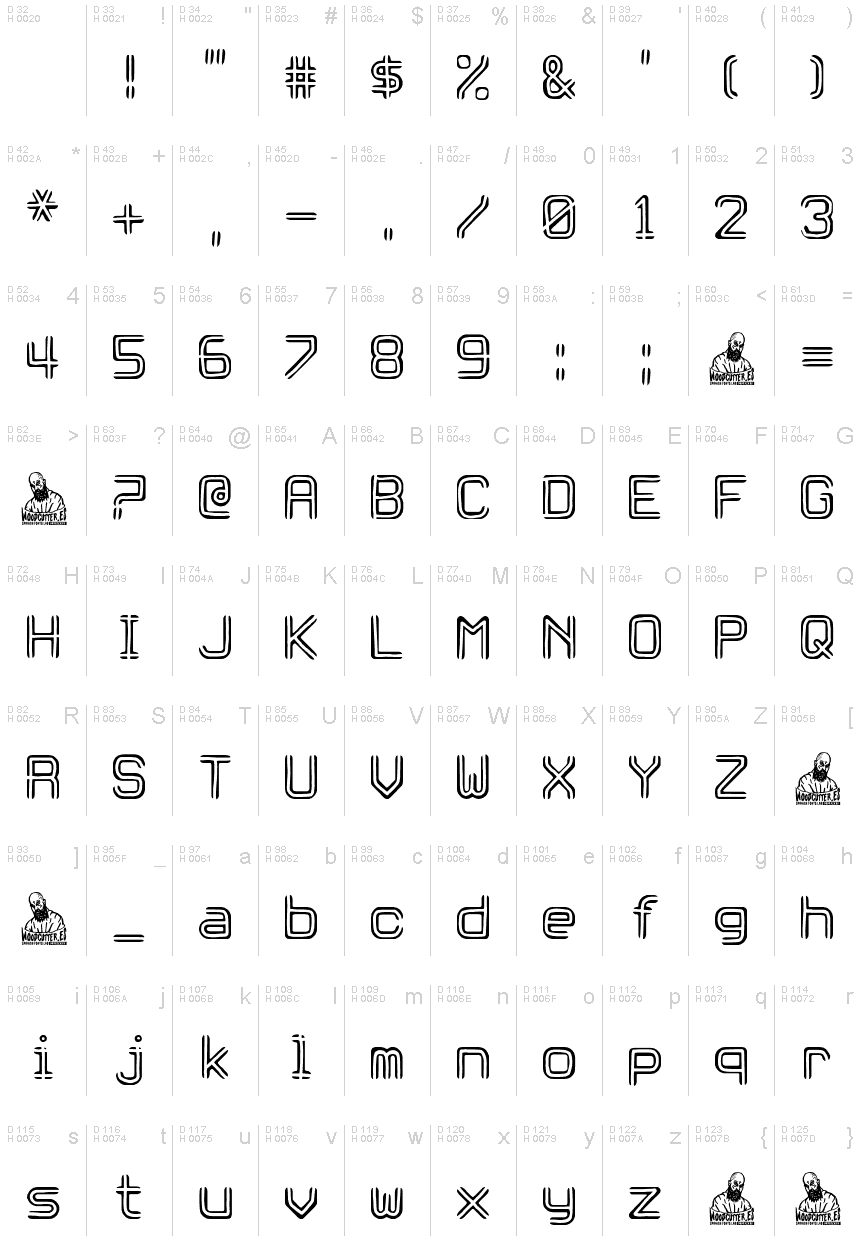
Nasty Works Company
The Nasty Works Company font, designed by Woodcutter, is a captivating display typeface with a semi-expanded width. Its bold and edgy style makes it perfect for projects that aim to stand out and make a statement.
This font is ideal for creating attention-grabbing logos, posters, and headlines that demand attention. Its unique design adds a touch of rebelliousness to any project, making it suitable for branding campaigns targeting young and daring audiences.
Nasty Works Company font brings an element of excitement and creativity, making it an excellent choice for artistic endeavors such as album covers or event invitations.